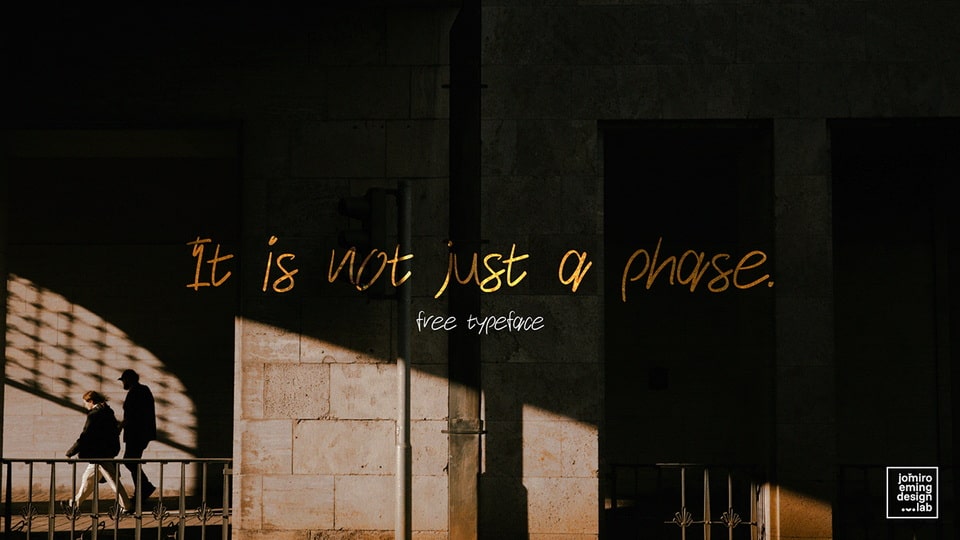
Download It is not just a phase font, a natural, organic handwritten typeface that exudes an artistic touch with each stroke, inspired by the flow and rhythm of handwriting.
Designer: Jomiro Eming